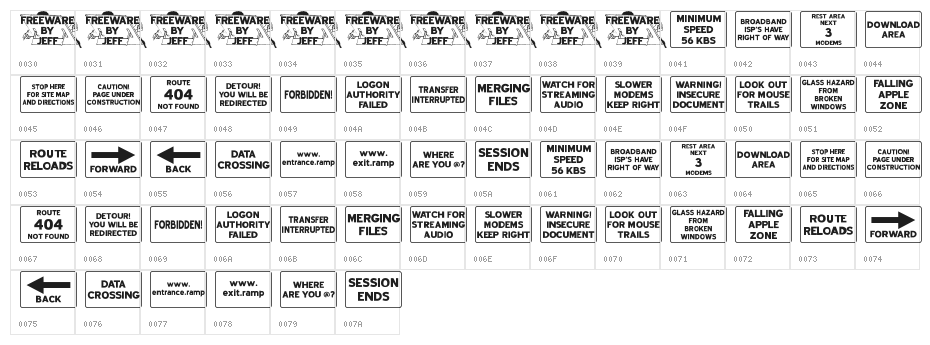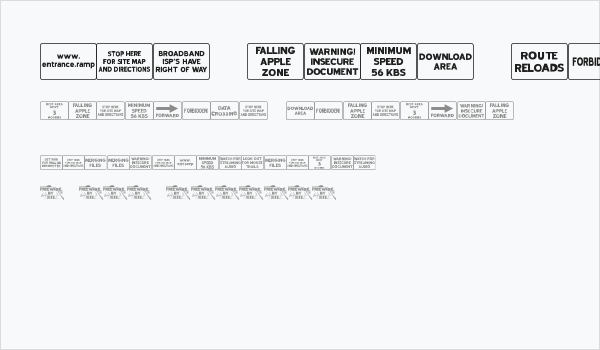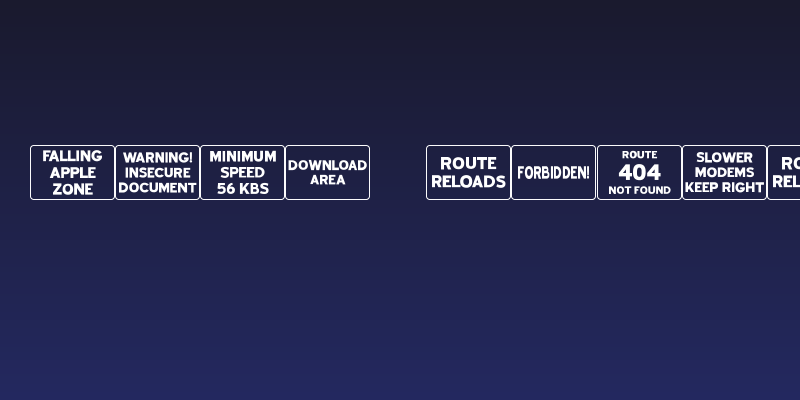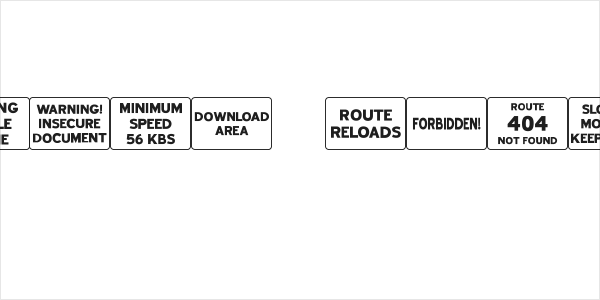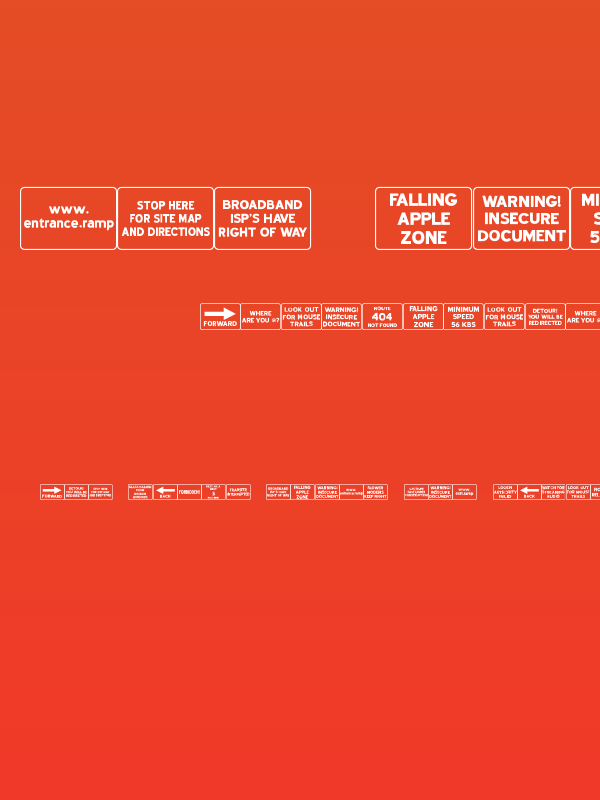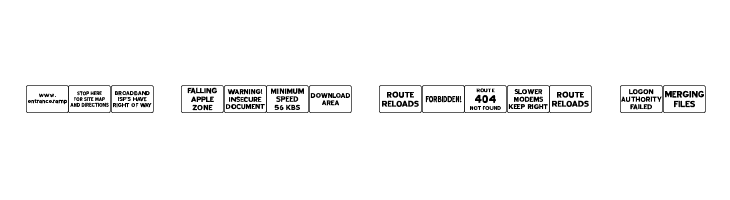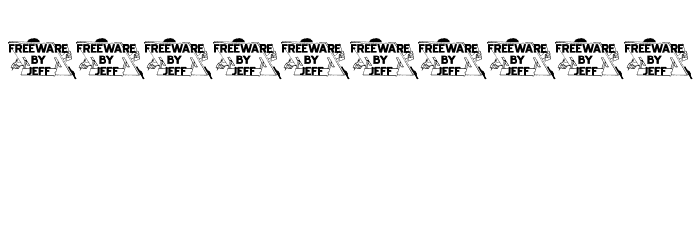
Web Road Signs JL Font
Web Road Signs JL Description
This font is designed to mimic the style of road signs, featuring bold, clear, and highly legible characters. The letters are uppercase and have a uniform stroke width, which enhances readability from a distance. The font includes a variety of symbols and arrows, emphasizing its utility in directional and informational signage. The characters are evenly spaced, ensuring clarity and ease of reading. This font is ideal for conveying important information quickly and effectively, making it suitable for both digital and physical signage applications.
| Use Case | Headlines, Signage |
| Proposed Projects | This font is perfect for creating digital or physical road signs, informational posters, and any project requiring high visibility and quick readability. |